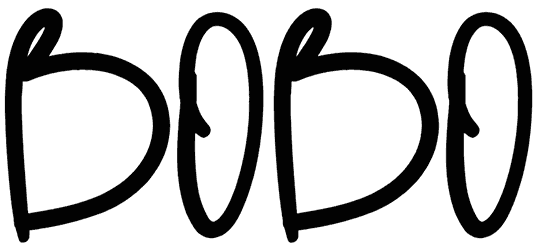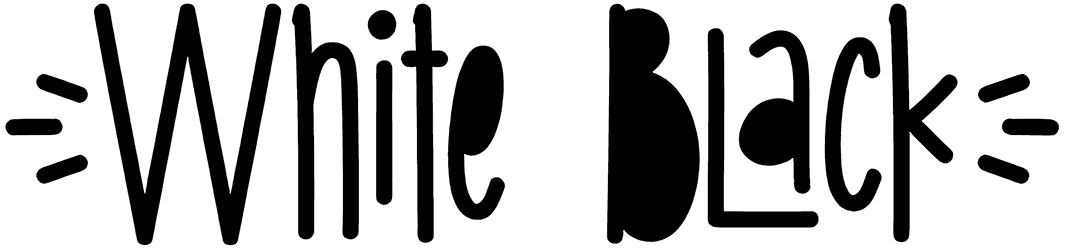
White Black Font
Next time you want to bring extra playfulness to your text design, do it with the humorous style of White Black. If you can just work without the numbers and punctuation marks, this marker font will be your perfect option for creating baby apparel, mugs, back-to-school posters, or something else.
In other words, this doodle font won’t let you down with its creative letters, contradicting one another every time one of those black letters is placed beside the regular ones.